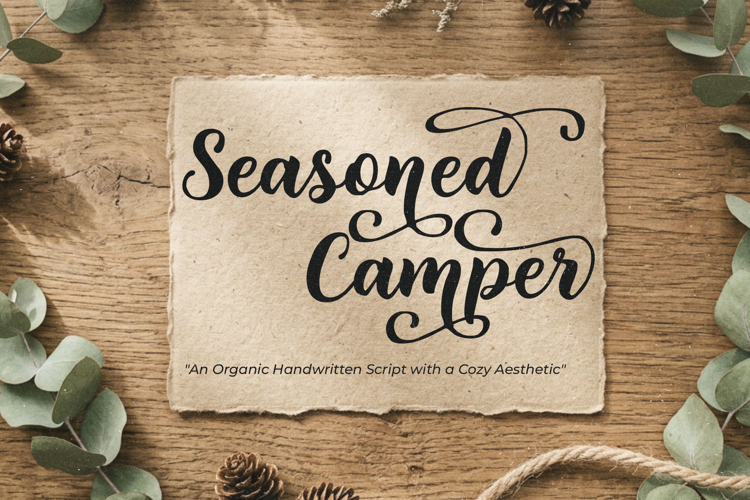
Seasoned Camper
Embrace the cozy, adventurous spirit with Seasoned Camper, an authentic hand-drawn calligraphy font designed for modern creatives. Featuring fluid, natural strokes and a laid-back yet refined aesthetic, this font captures the perfect balance between organic craftsmanship and contemporary design.
Seasoned Camper is packed with 171 alternate characters (glyphs), giving you endless possibilities to create unique, custom lettering. Whether you want to add elegant swashes to your headings or seamless ligatures to your quotes, this font provides all the versatility you need to make your projects stand out.